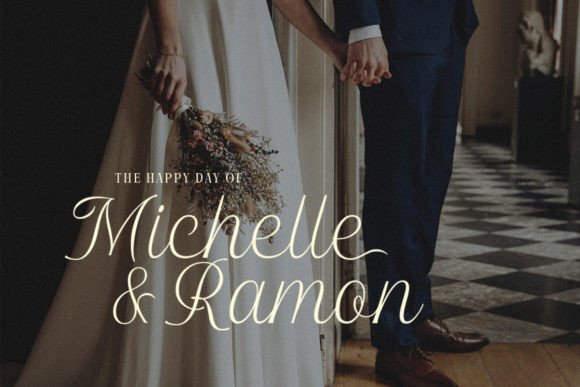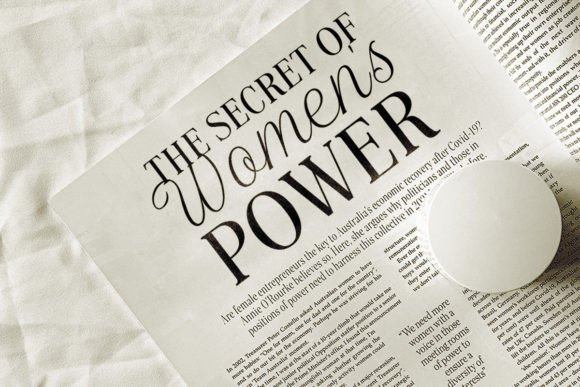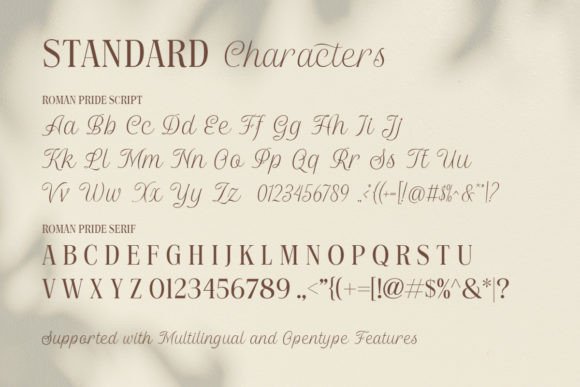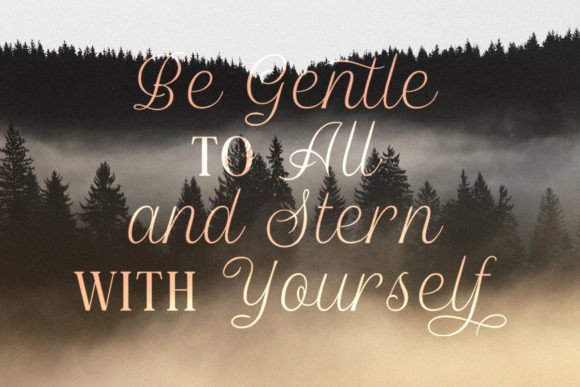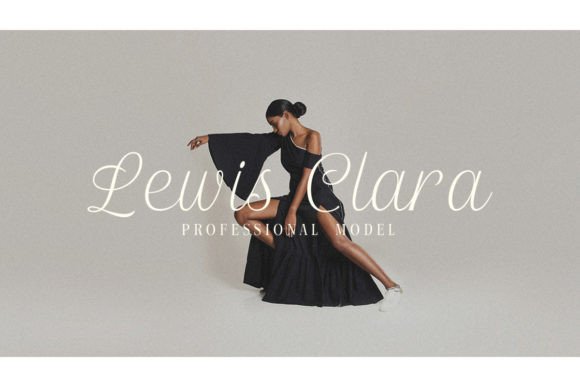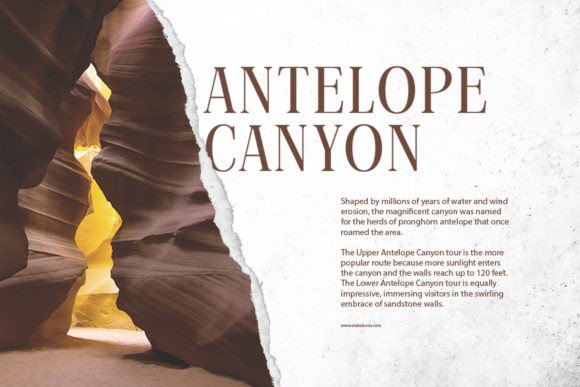
Introduction to Roman Pride Duo Font
As a designer, there’s nothing quite like the thrill of discovering a new font that instantly sparks creativity. For me, it was a late-night brainstorming session with a blank canvas and a clear goal in mind: to create a wedding invitation that would leave a lasting impression. And that’s when I stumbled upon the Roman Pride Duo Font – a match made in heaven, combining an elegant serif font with a charming script font that elevated my design to new heights.
With the Roman Pride Duo Font, designers can unlock a world of creative possibilities. This versatile font duo is not just a design resource, but a high-quality asset that can be used for a wide range of projects, from wedding invitations to packaging, fashion, and stationery. And the best part? It’s available for free download, making it an accessible and valuable addition to any designer’s toolkit.
Key Features of Roman Pride Duo Font
- High-quality design resource ideal for creative projects, offering a unique and elegant look.
- Comes in two font styles, making it a versatile choice for various design needs.
- Transparent background, allowing for seamless integration with any design element.
- Perfect for designers looking for a free, high-quality font to elevate their creative project.
Honest Review: Roman Pride Duo Font
I recently stumbled upon the Roman Pride Duo Font, and I must say it’s a fantastic design resource. As a designer, I appreciate the attention to detail and the high quality of this font. It’s perfect for any creative project that requires a touch of elegance and sophistication.
- High-quality design that exudes elegance and sophistication
- May not be suitable for bold or playful designs
- Limited flexibility in terms of customization
- Not ideal for designs that require a lot of color variation
Overall, I’m impressed with the Roman Pride Duo Font. While it may have some limitations, its high quality and elegance make it a valuable addition to any designer’s toolkit. I’d definitely recommend it for any creative project that requires a touch of sophistication.
Roman Pride Duo Font
Getting the Most Out of Roman Pride Duo Font
Use the Roman Pride Duo Font to create a consistent design style across your branding materials. Experiment with different font sizes and combinations to achieve a unique look. Consider using the font in conjunction with other design elements, such as images or graphics, to create a visually appealing design.
The Roman Pride Duo Font is suitable for a variety of creative projects, including logo design, business cards, brochures, and presentations. Use the font to create a professional and modern design that reflects your brand’s personality and style.